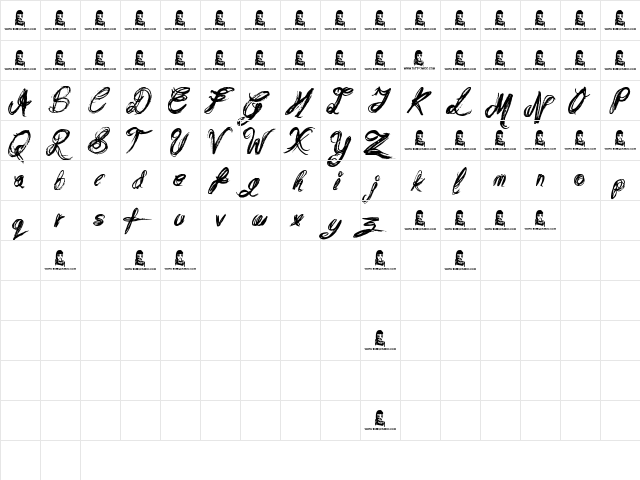
Messy Script Regular Font Preview
Messy Script Regular
Design Context for Messy Script Typeface
Messy Script brings a calligraphic fluidity to the page — its connecting strokes and expressive curves give it an unmistakably human quality.
Font Pairing: Combine Messy Script with a simple geometric sans for maximum contrast — the tension between flowing curves and clean structure is a classic typographic pairing.
Pro Tip: Use Messy Script for short runs of text — names, titles, or taglines. Extended body copy in script faces tires the eye quickly.